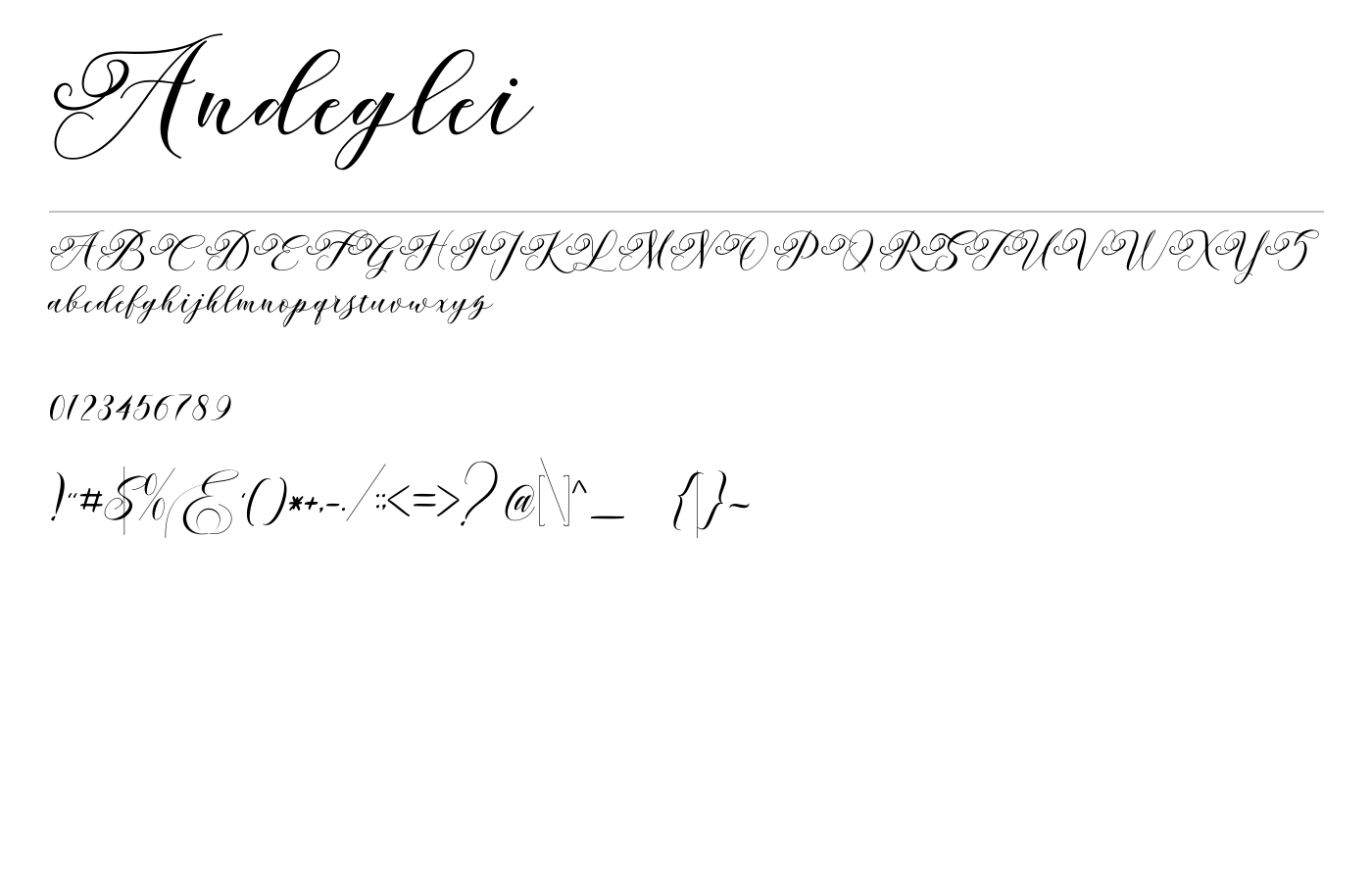
Andeglei is an elegant script font characterized by its delicate, flowing strokes and intricate swashes, giving it a graceful and romantic feel. It features high contrast between thin and slightly thicker lines, with beautifully ornate uppercase letters and smooth, refined lowercase forms, making it ideal for luxury branding, wedding invitations, and sophisticated editorial designs. This font’s stylish and decorative nature lends itself well to projects that seek a touch of class and timeless beauty.
Andeglei Font
About Andeglei Font